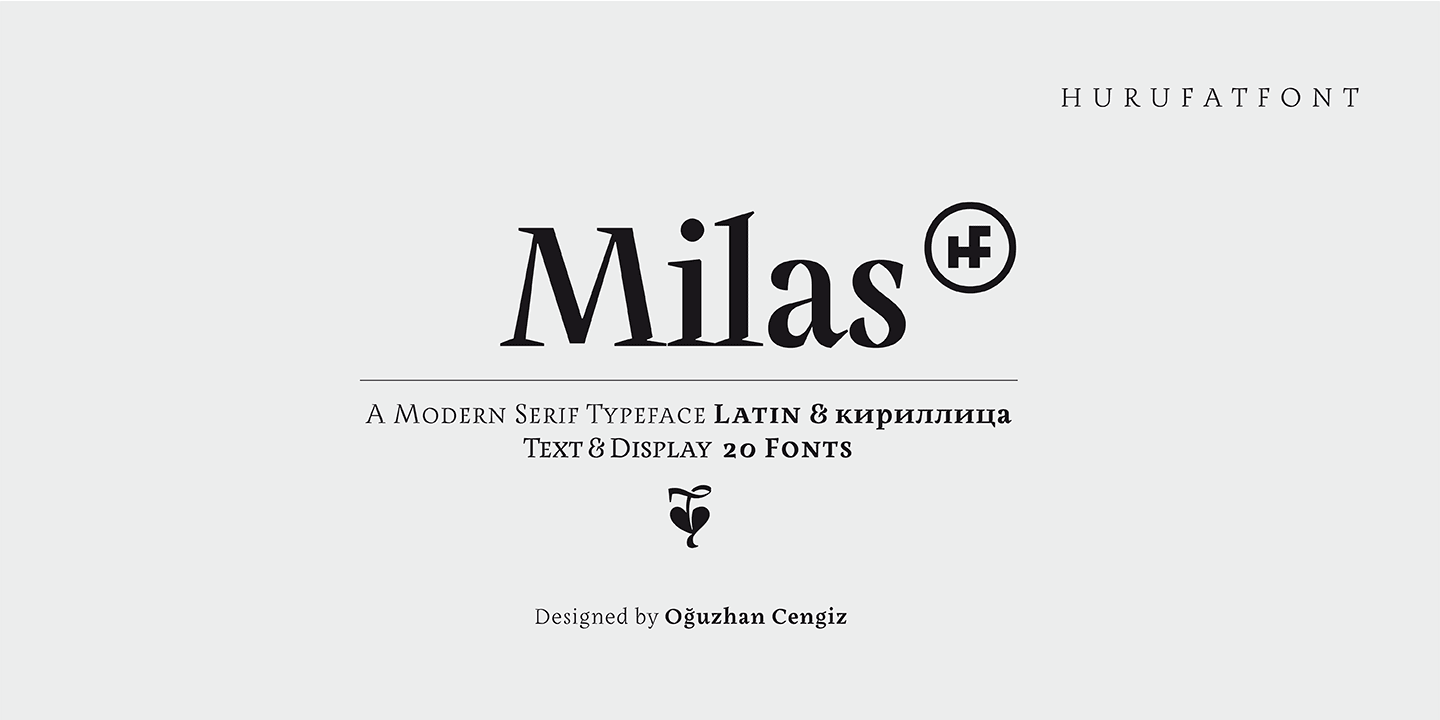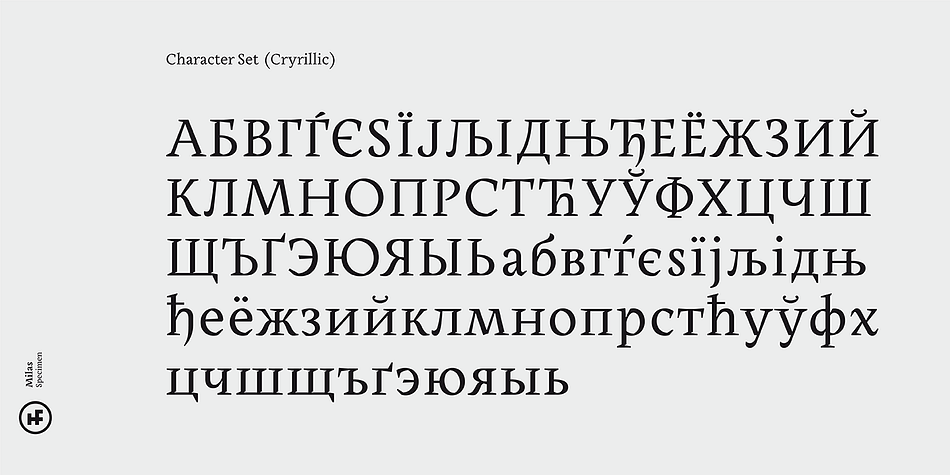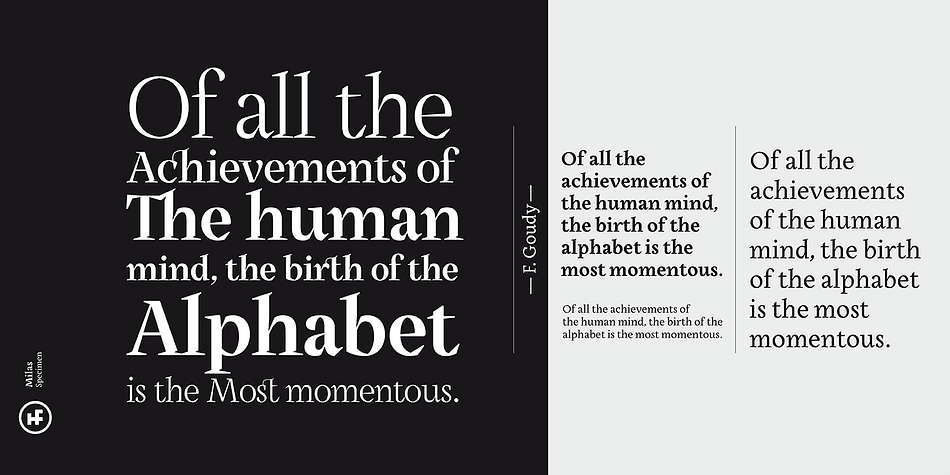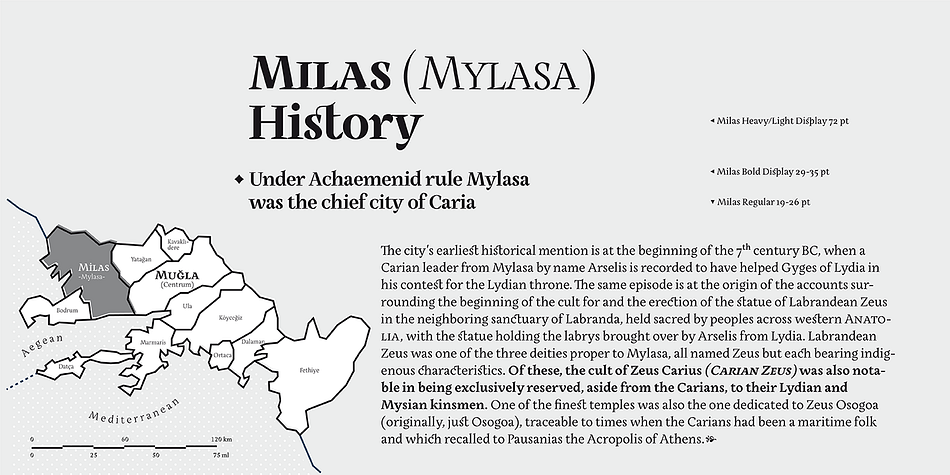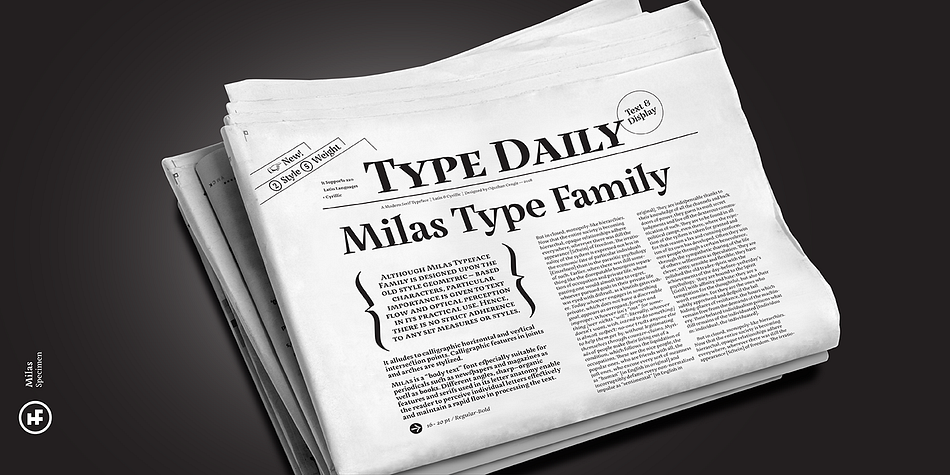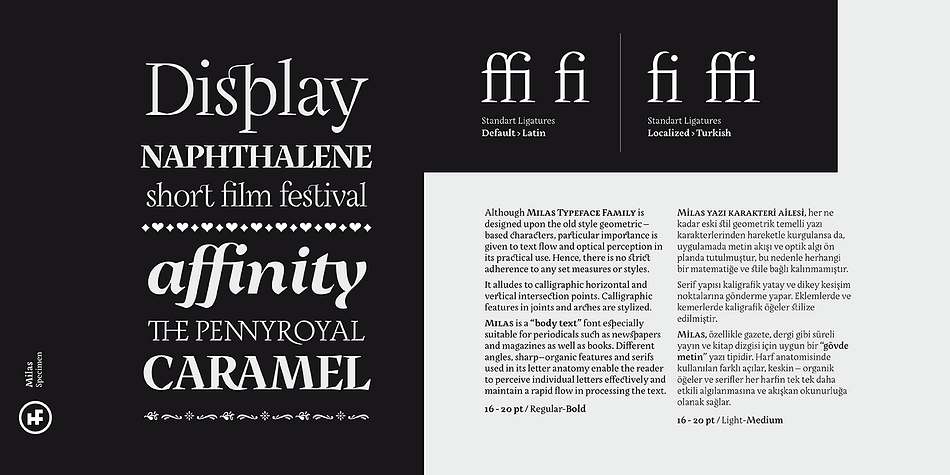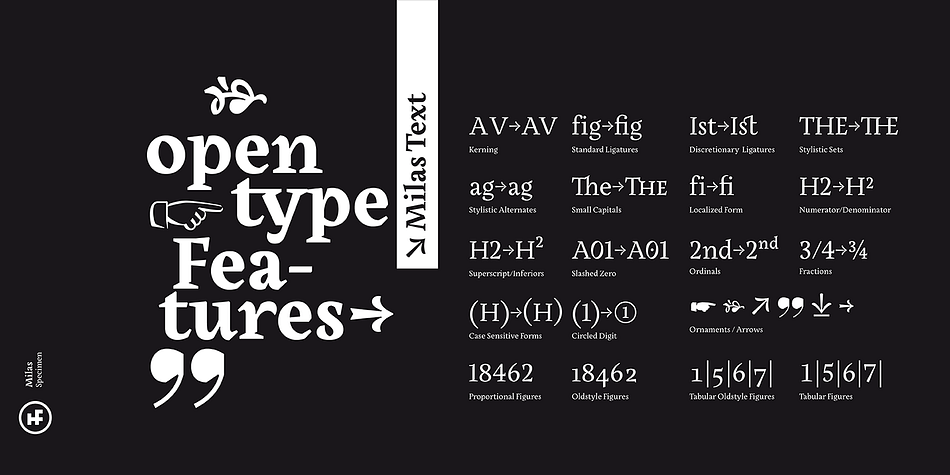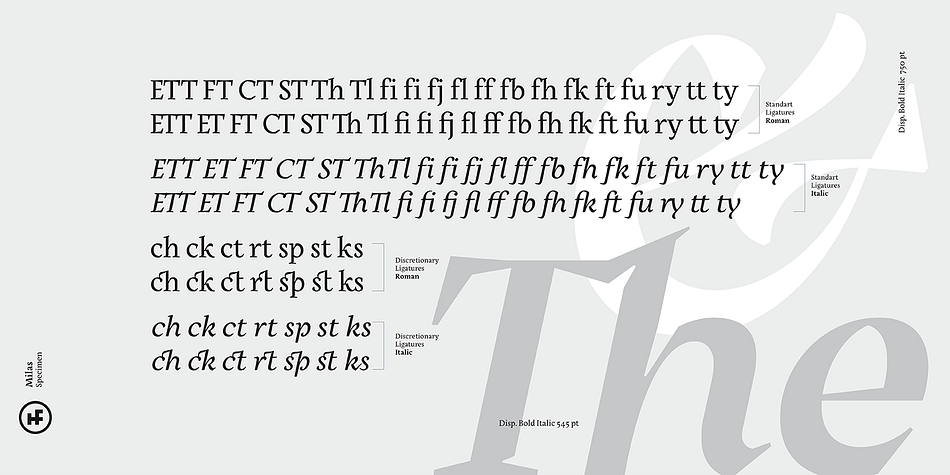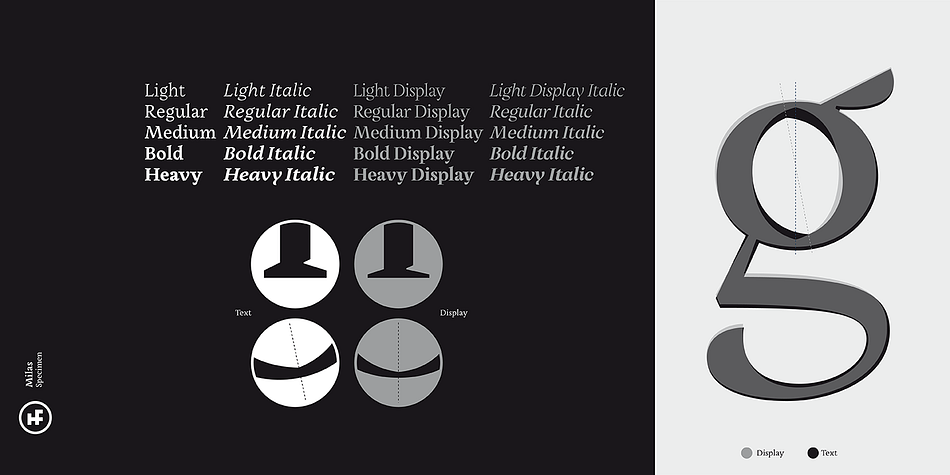
Designed by Oğuzhan Cengiz, Milas is a serif font family. This typeface has twenty styles and was published by Hurufatfont Type Foundry.
Although Milas Typeface Family is designed upon the old style geometric – based characters, particular importance is given to text flow and optical perception in its practical use. Hence, there is no strict adherence to any set measures or styles.
It alludes to calligraphic horizontal and vertical intersection points. Calligraphic features in joints and arches are stylized.
Milas is a “body text” font especially suitable for periodicals such as newspapers and magazines as well as books. Different angles, sharp–organic features and serifs used in its letter anatomy enable the reader to perceive individual letters effectively and maintain a rapid flow in processing the text.
Milas has two styles as Text and Display, also has five weights. It contains rich opentype features. It is a suitable body and display typeface for book composing and periodicals like newspapers, magazines. Also Milas is an awarded typeface. It got 36th The Best Typeface Prize by GMK (Turkish Graphic Designers Association) in 2017 Exhibition/Competition. But Milas got the award with “Olba” name. After that its name had changed because of the name similarity. And here it is: Milas.
Foundry | Hurufatfont Type Foundry |
Designer | Oğuzhan Cengiz |